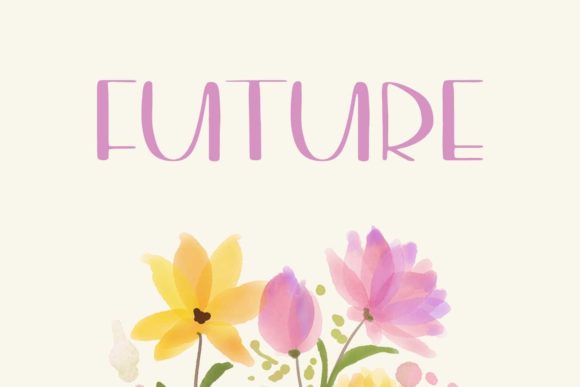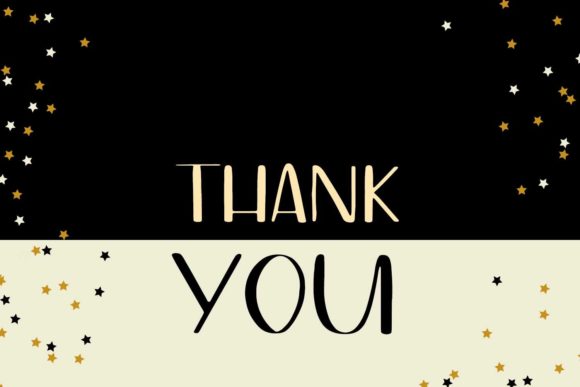
The Gibar Font: A Playful and Modern Display Font for Creative Minds
I’ll never forget the moment I stumbled upon the Gibar font. I was working on a project for a client who needed a custom logo, and I was struggling to find the right font to bring their brand to life. I had scoured the internet, tried out countless fonts, but nothing seemed quite right. That was until I discovered Gibar. With its playful and modern vibe, it was love at first sight! In this article, I’ll share my experience with Gibar, its features, and how to make the most of this amazing font.
An Honest Review of Gibar Font
What I Love About Gibar ✨
- ✅ Playful and modern design: Gibar’s unique and quirky style makes it perfect for creative projects that need a bit of personality.
- ✅ Highly versatile: Whether you’re a crafter, graphic artist, or designer, Gibar can be used for a wide range of projects, from logos and branding to posters and social media graphics.
- ✅ Easy to read: Despite its playful nature, Gibar is surprisingly easy to read, even at smaller font sizes.
- ⚠️ Limited use for body text: While Gibar is great for headlines and titles, it’s not the best choice for body text due to its playful and decorative nature.
- ⚠️ May not work well for formal projects: Gibar’s quirky style may not be suitable for formal projects or those that require a more professional tone.
- Experiment with Gibar’s OpenType features, such as stylistic alternates and glyphs, to add more personality to your design.
The Backstory of Gibar Font
Gibar was designed by a team of creatives who wanted to create a font that would bring a touch of playfulness and personality to design projects. Inspired by modern trends and classic typography, Gibar was crafted to be both fun and functional. Whether you’re a designer, crafter, or creative hobbyist, Gibar is sure to become a favorite in your font collection.
| Font Name | Gibar Font |
| Author | Zmapist |
| What is Gibar font best used for? | Gibar is perfect for creative projects that need a playful and modern touch, such as logos, branding, posters, and social media graphics. |